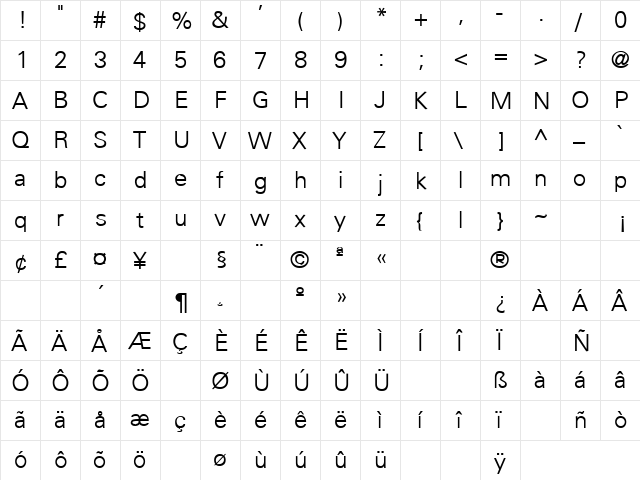
Black Dog 20 Regular Font Preview
Black Dog 20 Regular
Black Dog 20 Regular Font Details
Design Context for Black Dog 20 Typeface
Black Dog 20 takes a measured approach to typography — its balanced proportions and neutral character make it a reliable workhorse for both digital and print work.